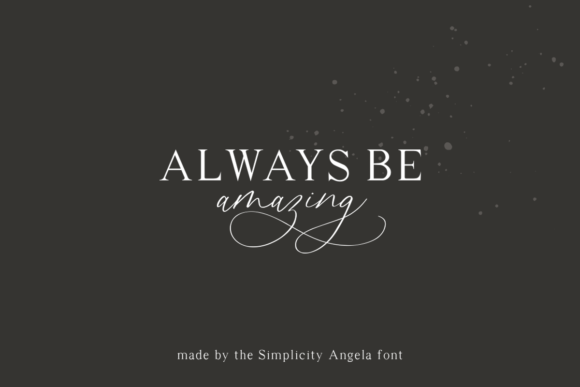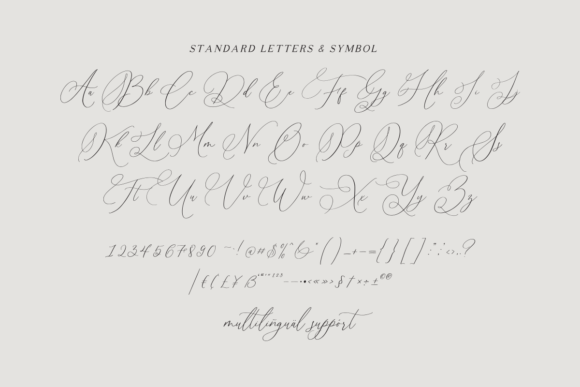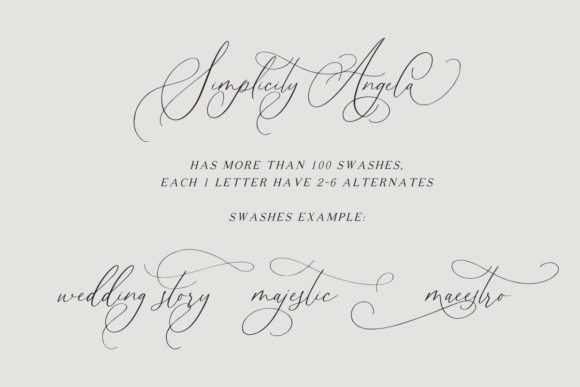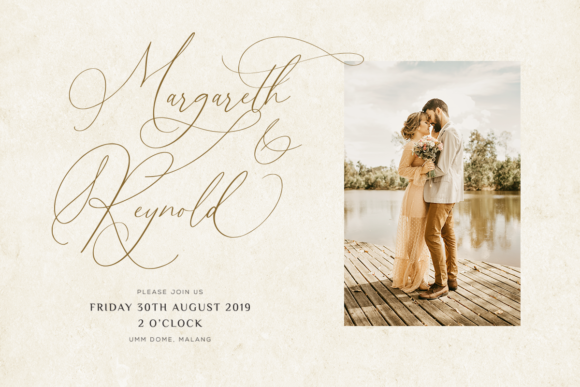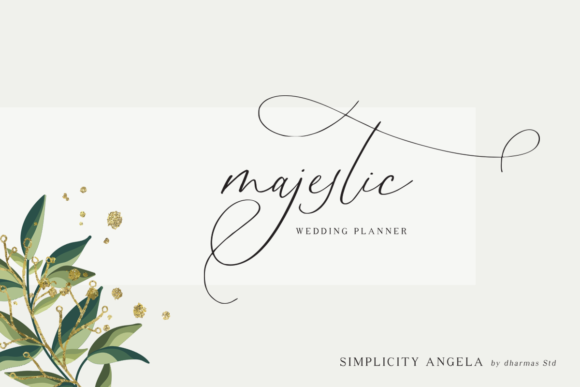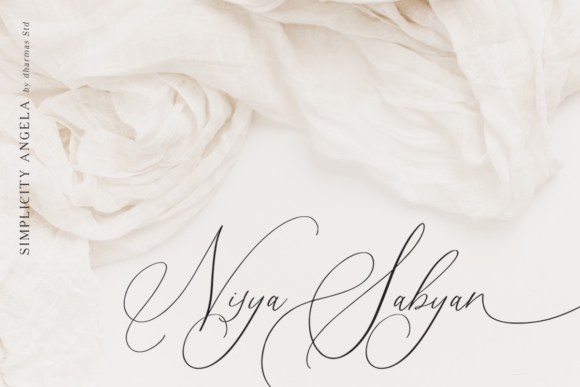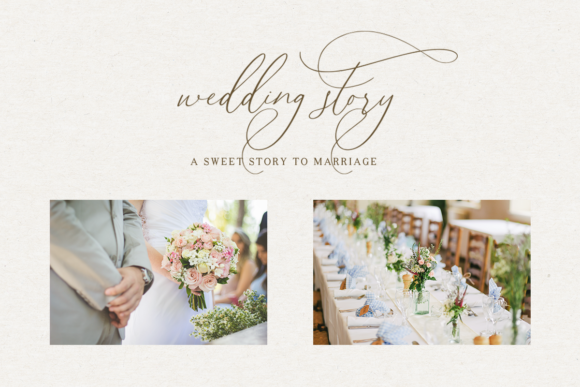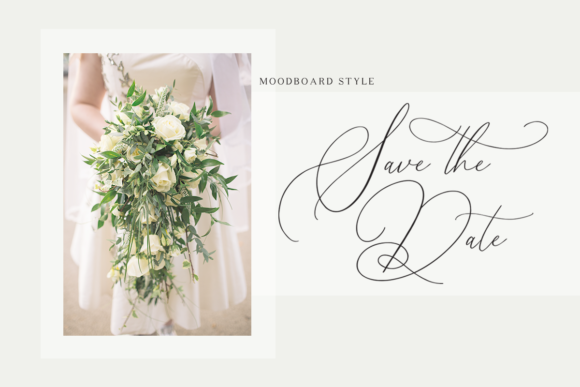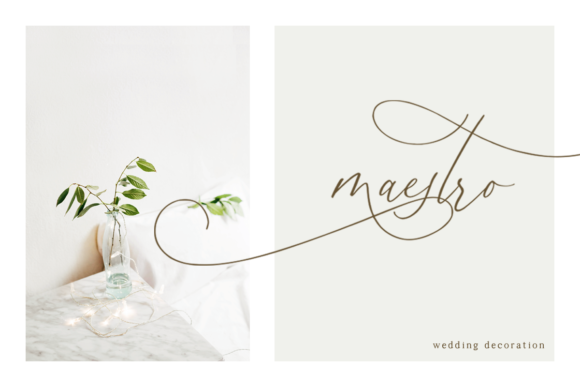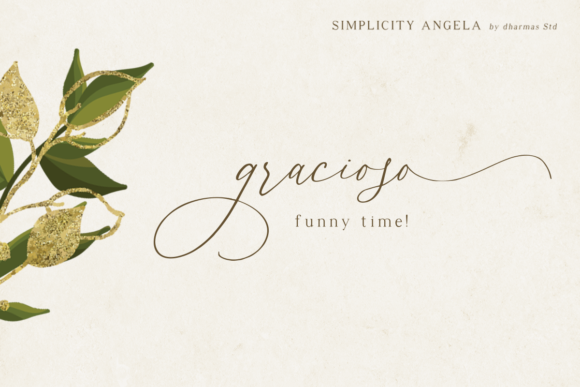
Simplicity Angela Font
About Simplicity Angela Font
Simplicity Angela updates classic calligraphy with a modern twist. Get inspired by its distinctly sophisticated charm!